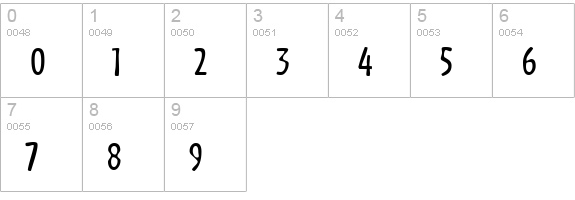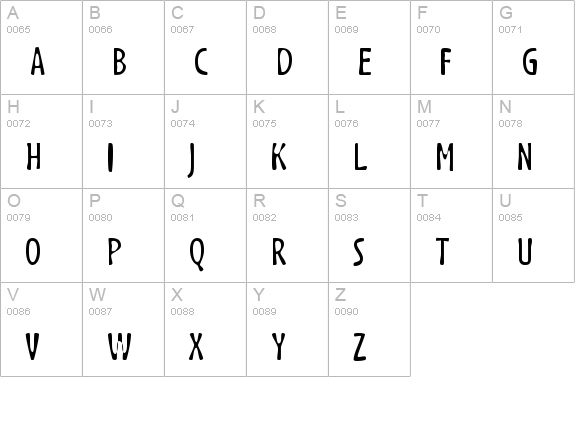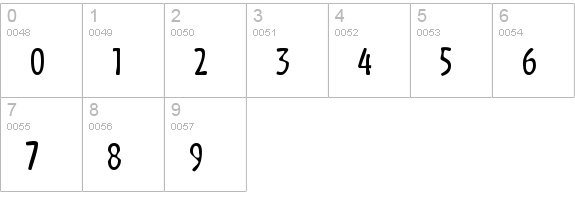
Cafecoco Font Details
Cafecoco font is a stunning and versatile typeface that will add a touch of elegance to any design project. With its sleek and modern design, this font is perfect for both digital and print media. Whether you're creating a logo, designing a website, or working on a branding project, Cafecoco font will make your text stand out. One of the best things about Cafecoco font is that it is completely free to download. You can easily access this font at FontsMarket.com, a trusted source for high-quality fonts. By offering Cafecoco font for free, the creators have made it accessible to designers of all levels, regardless of budget constraints. This font features clean lines, subtle curves, and a balanced letterform that exudes sophistication. It is available in a range of weights and styles, allowing you to choose the perfect variation to suit your project. Whether you prefer a bold and eye-catching look or a more delicate and refined aesthetic, Cafecoco font has you covered. Not only does Cafecoco font look great, but it is also incredibly easy to work with. Its well-crafted letterforms ensure legibility at any size, making it suitable for both large headlines and small body text. Additionally, the font is compatible with a variety of design software, making it a versatile choice for designers working in different environments. So, if you're looking for a high-quality font that is both stylish and free, look no further than Cafecoco font. Download it today from FontsMarket.com and elevate your design projects with its elegant and professional appearance.